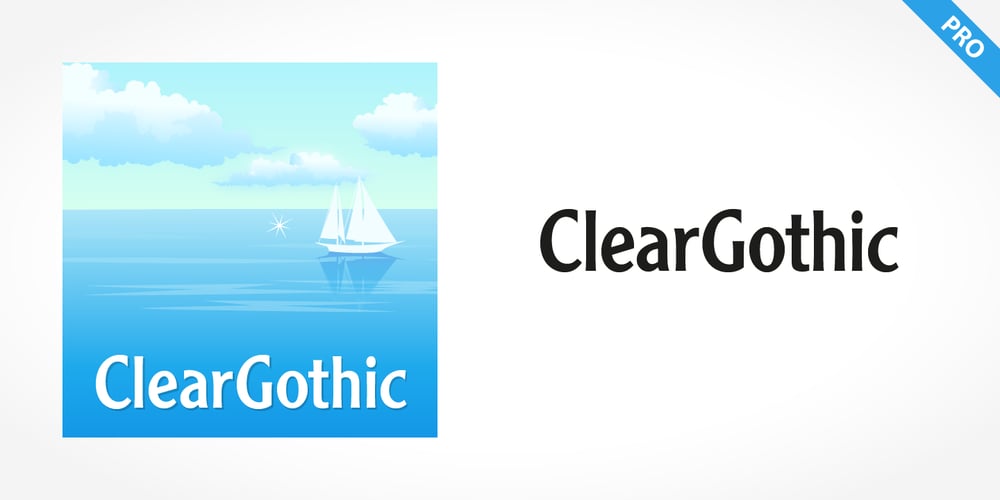
Cleargothic Pro
Cleargothic Pro font
Cleargothic Pro Font Family was designed by Morris Fuller Benton and published by SoftMaker. Cleargothic Pro contains 3 styles and family package options. Morris Fuller Benton designed the serifed Clearface typeface for ATF in 1907. He liked the design so much that he also created a flare-serif variation, Clearface Gothic, soon after. It is a great typeface for headlines. SoftMaker created an updated version, Cleargothic Pro, in 2012. SoftMaker’s Cleargothic Pro typeface family contains OpenType layout tables for sophisticated typography. It also comes with a huge character set that covers not only Western European languages, but also includes Central European, Baltic, Croatian, Slovene, Romanian, and Turkish characters. Case-sensitive punctuation signs for all-caps titles are included as well as many fractions, an extensive set of ligatures, and separate sets of tabular and proportional digits.